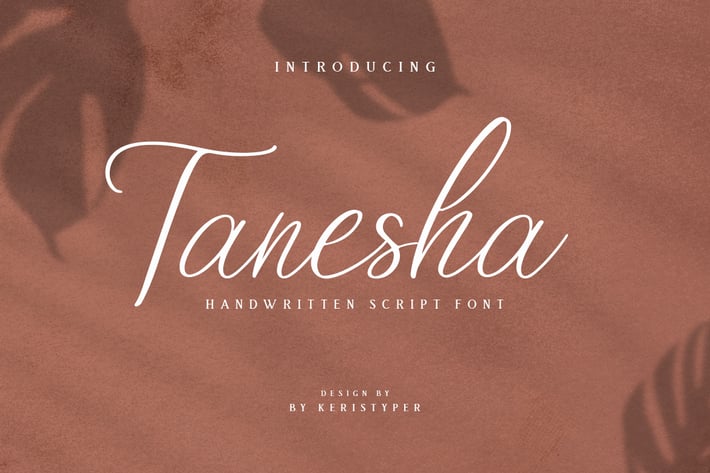
Tanesha Handwritten Script Font
Tanesha is a handwritten Script font. Work great for any design needs: logo, branding, modern advertising design, logos, poster quote, book/cover Title, editorial design, website/blog, card, custom mug, pillow, t-shirts, and any hand-lettered needs.
Tanesha Font multilingual support:
Afrikaans, Albanian, Catalan, Danish, Dutch, English, Estonian, French, Finnish, German, Icelandic, Indonesian, Italian, Malay, Norwegian, Portuguese, Spanish, Swedish, Zulu, and many more.
Standard & Multilingual glyphs